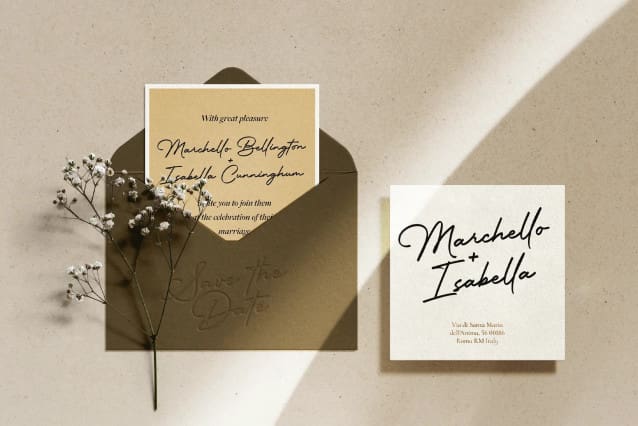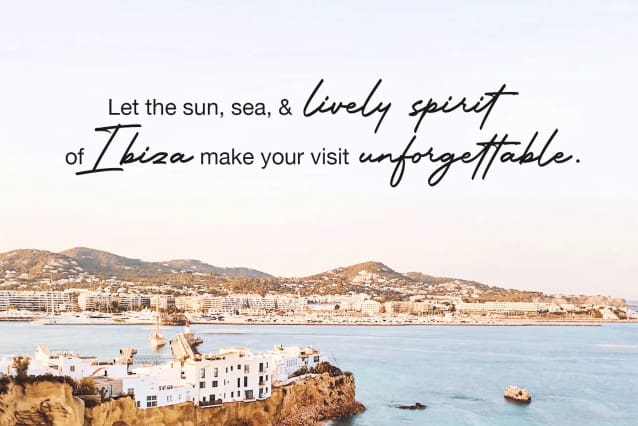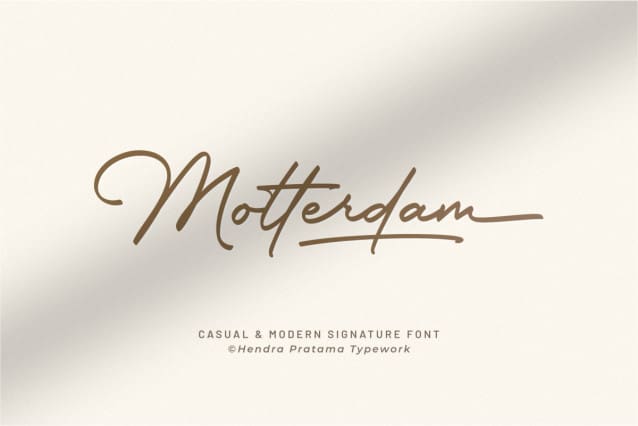
Motterdam Font
Motterdam Font is a simple and friendly handwritten font. Its natural and unique style makes it incredibly fitting to a large pool of designs. The only limit is your imagination!